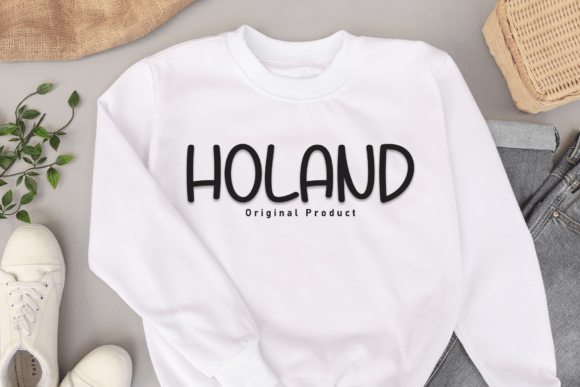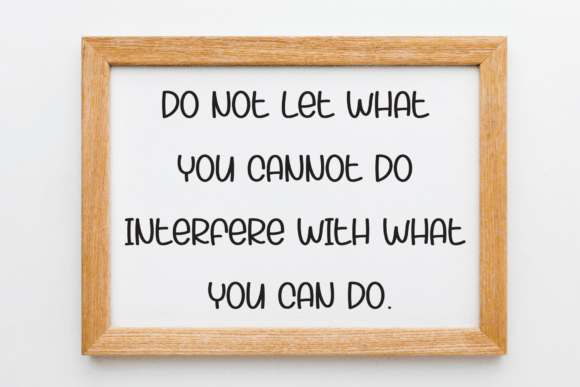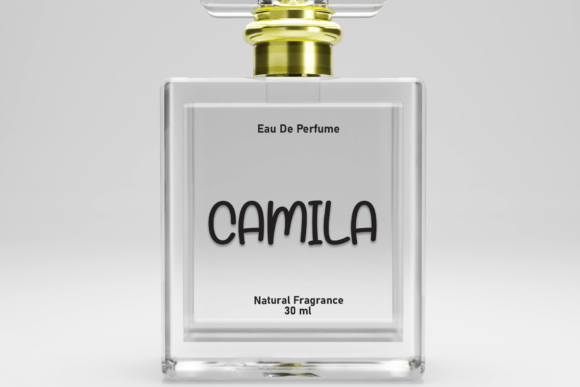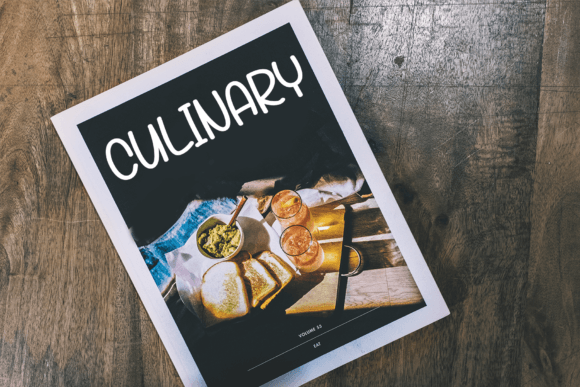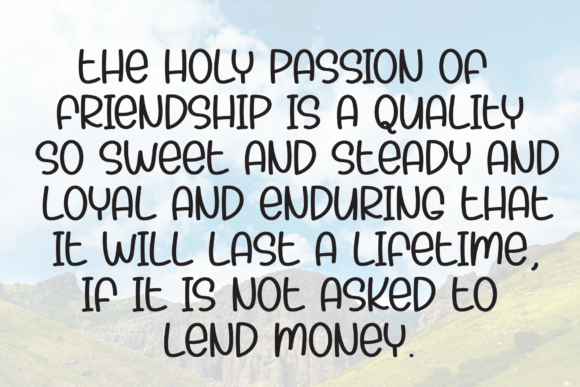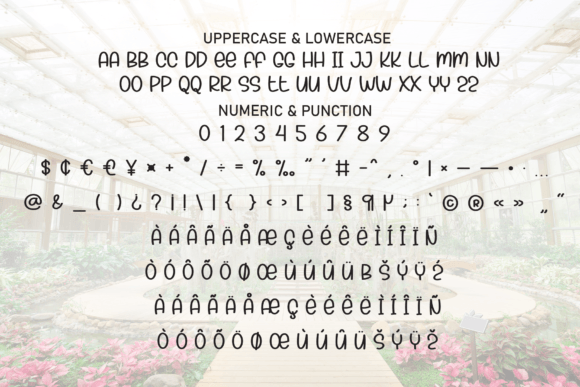
Introduction to Inside Garden Font
Remember the excitement of creating your first children’s book? The thrill of bringing a character to life and watching your imagination come to fruition on paper? For many designers, this feeling never gets old, and that’s exactly why Inside Garden Font is a game-changer.
This charming display font is the perfect addition to any creative project, from whimsical invitations to playful posters. With its rounded letters and natural inspiration, Inside Garden Font adds a touch of warmth and friendliness to any design. Whether you’re working on a high-quality project or just experimenting with a new idea, this font is sure to elevate your work and make it stand out.
Key Features of Inside Garden Font
- High-quality, detailed illustrations of garden elements, perfect for creative projects and design resources.
- Transparent background, allowing for seamless integration with any design or background.
- Designed with a unique, whimsical style, adding a touch of personality to your creative project.
- Includes a range of elements, such as flowers, leaves, and garden paths, to help bring your design to life.
- Perfect for use in digital design, print materials, and other creative projects where a high-quality, garden-inspired design is needed.
Honest Review: Inside Garden Font
As a designer, I’m always on the lookout for unique and high-quality fonts to enhance my creative projects. The Inside Garden Font is one such find that has caught my attention. I decided to give it a try and see how it fares in my design workflow.
Here are some aspects that I found particularly impressive:
- ✨ High-quality design: The Inside Garden Font has a beautiful, delicate aesthetic that makes it perfect for floral-themed designs or any project where a touch of whimsy is needed.
- ✨ Versatility: I found that the font works well in a variety of contexts, from titles and headings to body text and even logos.
- ✨ Transparent background: The font’s transparent background makes it easy to layer and combine with other design elements.
However, there are a few limitations I encountered:
- ⚠️ Limited font styles: The Inside Garden Font comes in a limited range of styles, which may not be ideal for designers who need a lot of customization options.
- ⚠️ Not suitable for large body text: The font is best suited for titles and headings, as the text can become difficult to read in larger font sizes.
Overall, I’d say that the Inside Garden Font is a solid addition to any designer’s toolkit. While it has its limitations, its unique design and versatility make it a great resource for creative projects. I’d definitely recommend it for designers looking for a high-quality font to add some personality to their work.
Inside Garden Font
Tips for Getting the Most Out of Inside Garden Font
For the best results, pair Inside Garden Font with a high-contrast background to make the typography stand out. Experiment with different font sizes and styles to add depth and visual interest to your design.
Inside Garden Font is ideal for a variety of creative projects, including:
– Social media graphics and posts
– Posters and flyers
– Business cards and letterheads
– Digital presentations and documents